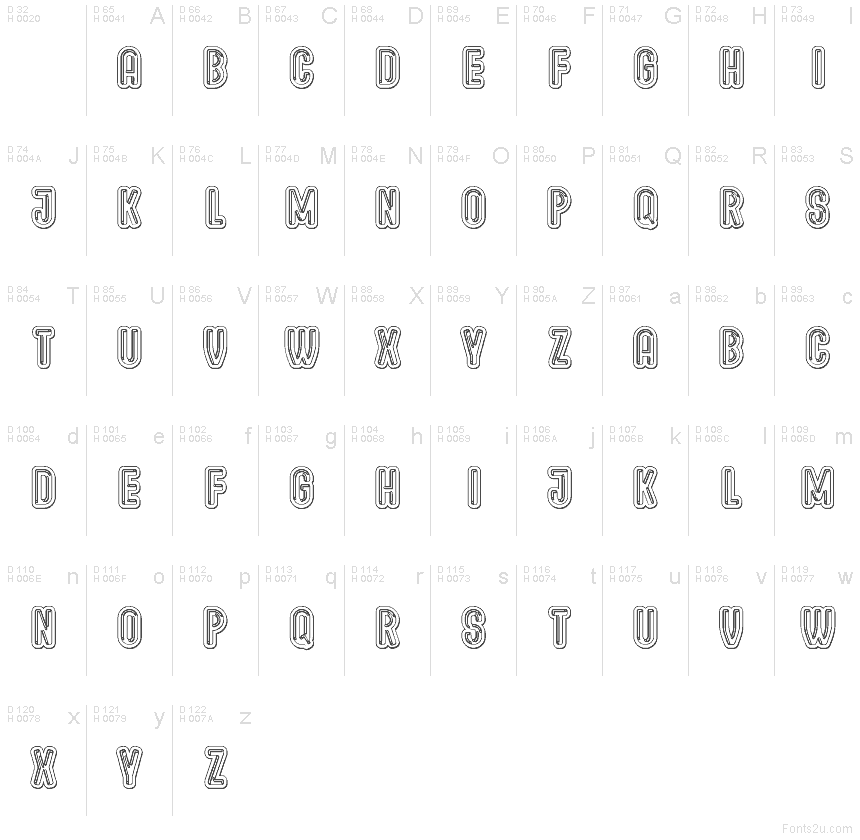
Scum Hollow Regular
Scum Hollow font by Vladimir Nikolic is a standout display font with a condensed width. Its sleek geometric and layered design has a retro-futuristic feel which it combines with minimalist embellishments resulting in a truly unique look. This groovy font is presented as part of the 4-font Scum typeface family.
Scum Hollow is perfectly suited for album covers, movie posters, merch designs, ad banners, packaging boxes/covers, logo designs, magazine headlines and titles, branding projects and product promotion campaigns.